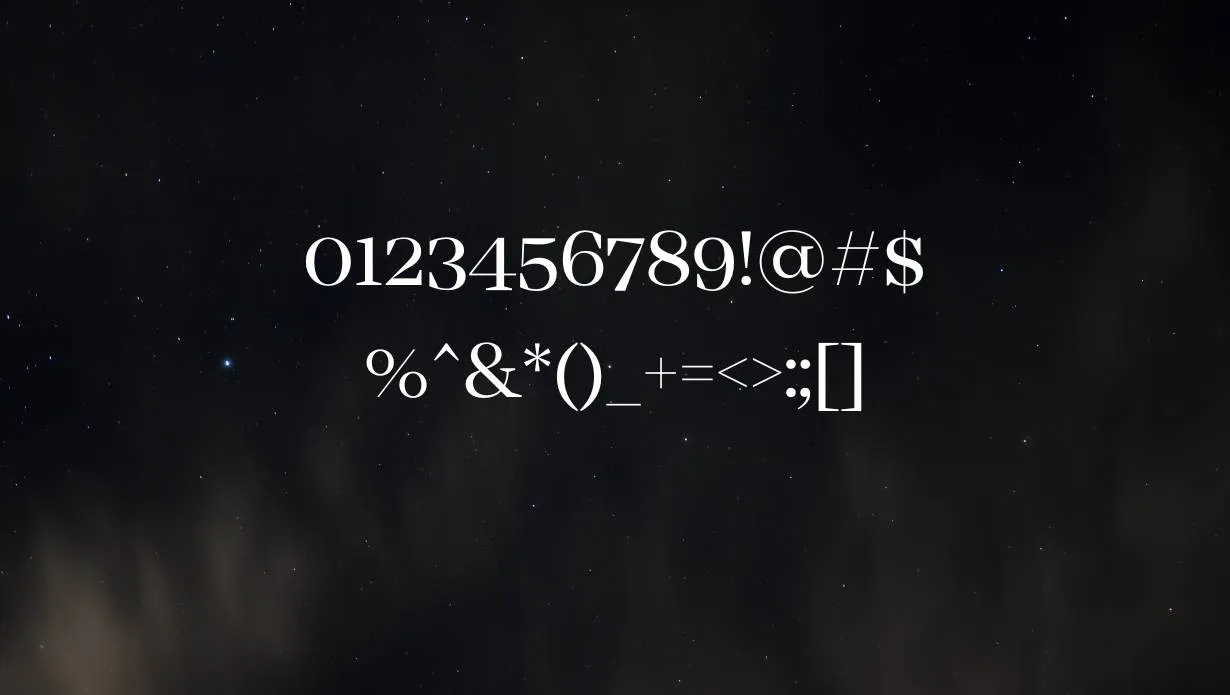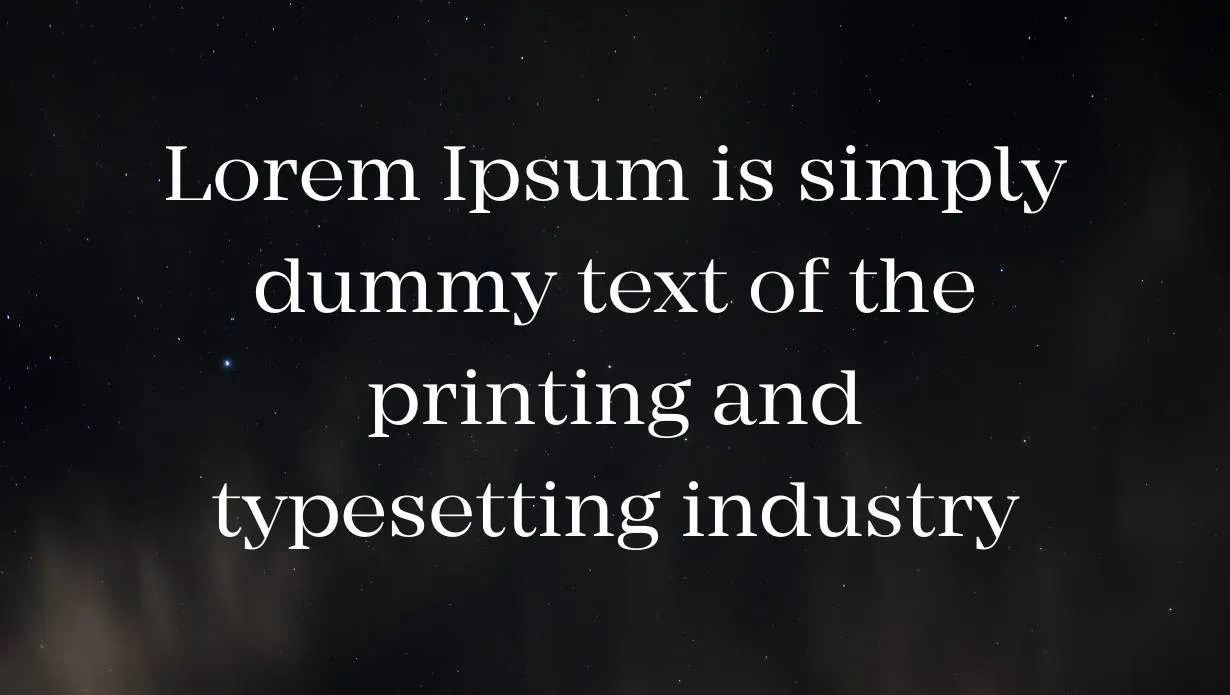
Mirador Font is a versatile and contemporary typeface known for its clean lines and readability. This font is designed by Rene Bieder a well-known font designer. This font belongs to Basic Serif fonts.
This Serif font is great for creating websites, magazines, and any project that requires clear and modern typography. You can also use this font in Adobe and MS Word.
| Name | Mirador Font |
| Designer | Rene Bieder |